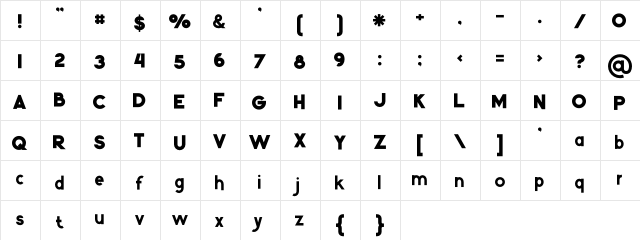
Kiko Regular Regular
Design Context for Kiko Regular Typeface
Kiko Regular is a composed and adaptable typeface that performs quietly and consistently across a wide range of design contexts.